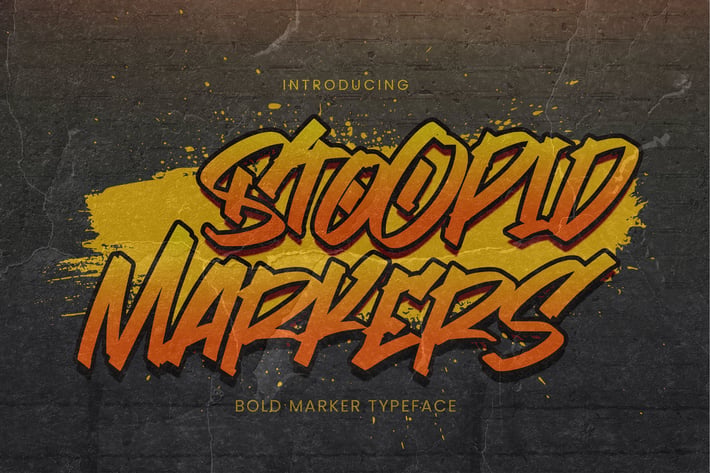
Stoopid Markers - Bold Market Typeface
Here comes a New font, Stoopid Markers is a Bold Market Typeface that is written casually and quickly.
these strong Letters are made with Market Typeface on Procreate. Then crafted carefully drawn into a vector format.
That is why Stoopid Markers has a charming, authentic, and relaxed characteristic more natural look to your text with a more natural look to your text. You can activate Ligature OpenType panel to make these two styles. It also has many and underlines that make your text and design more interesting. .